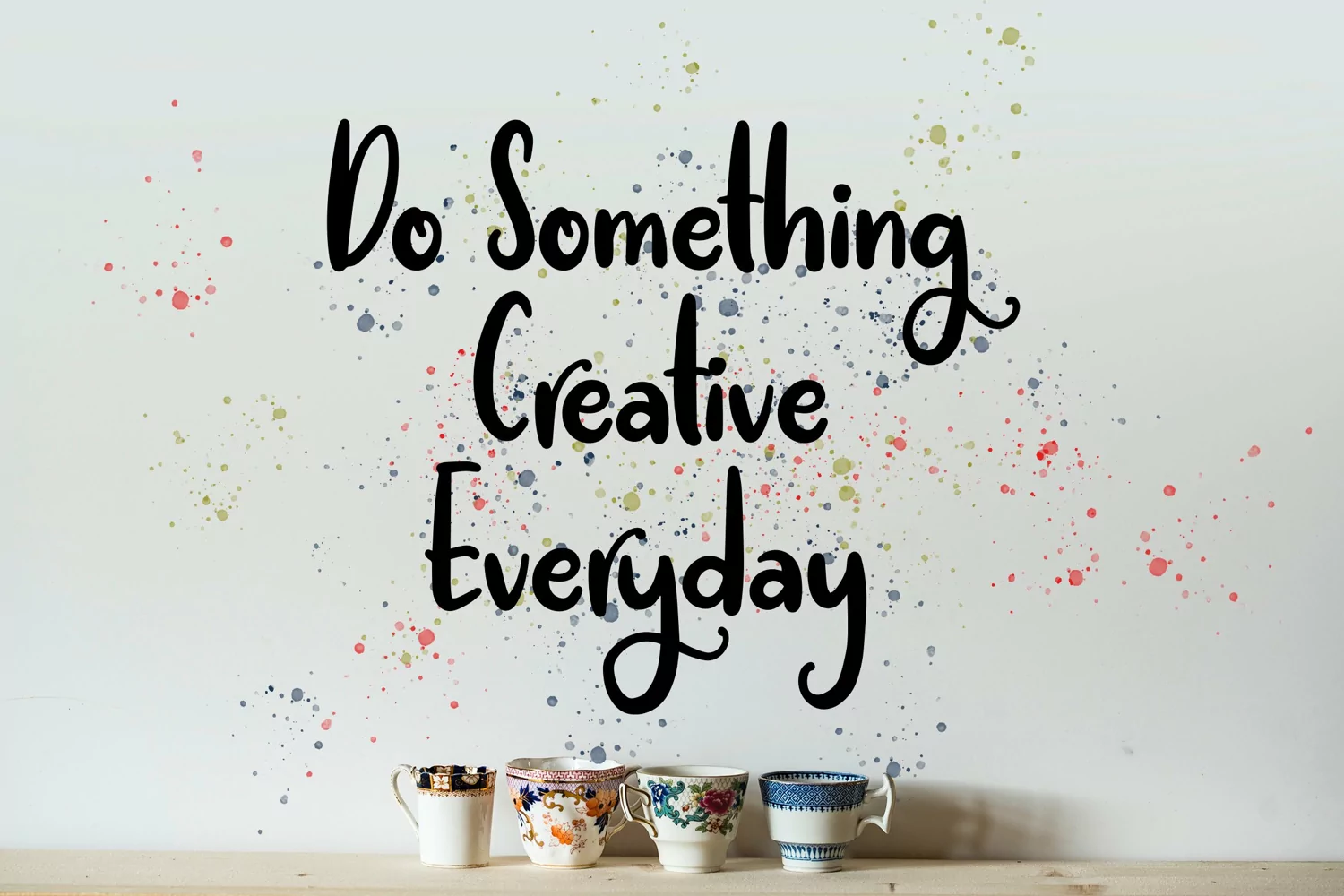
Pingkans - Handrawn Swirling Font that contain lowercase, uppercase, symbol, and also support multi language. There’s a lot ligatures in this font. This Font also comes with ligatures, alternates and many more. this font suitable for fashion, branding, catalog and other design what you want.